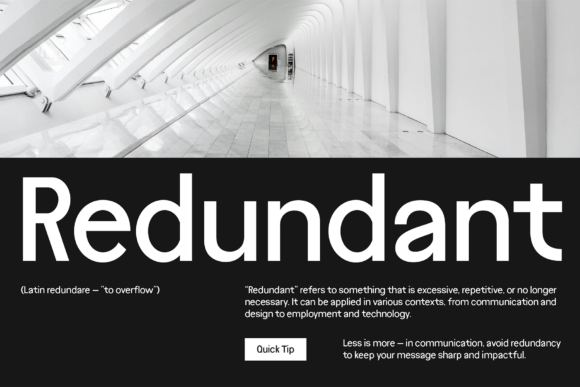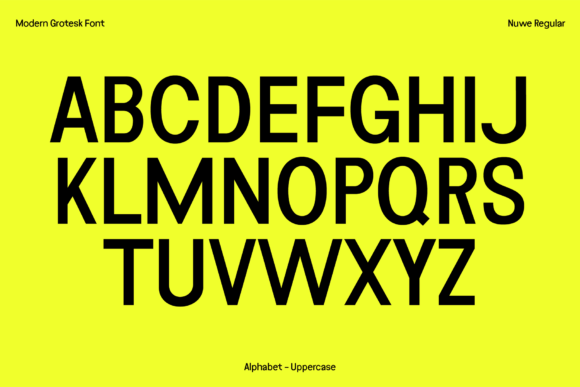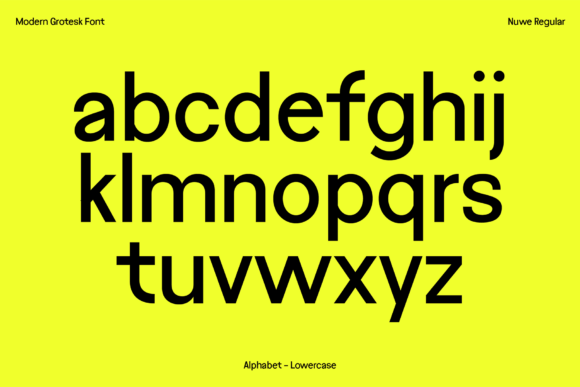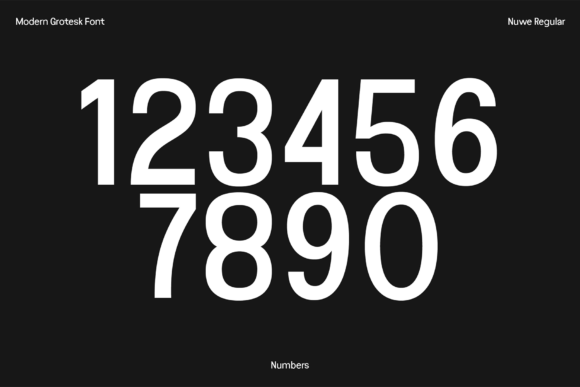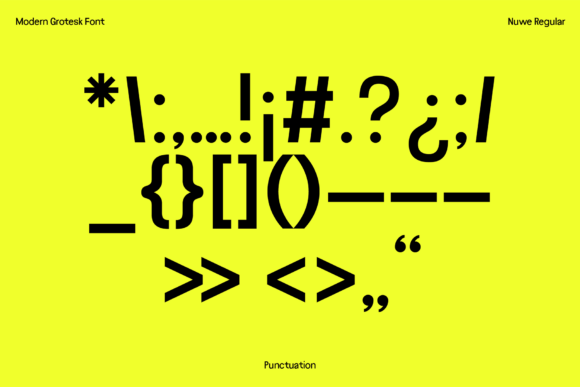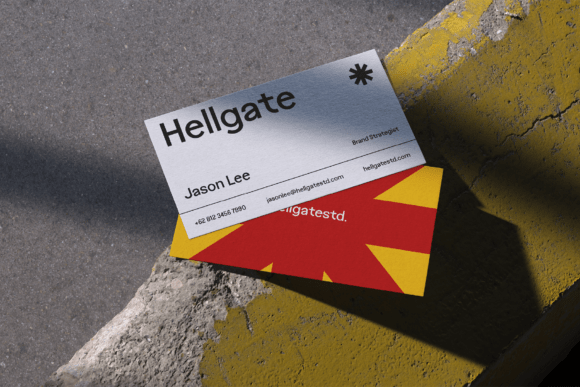
Introduction to Nuwe Sans Font
As you sit at your desk, staring at a blank page or screen, the creative wheels begin to turn. You envision a world of beauty, a symphony of words and images that will transport your audience to a new realm of experience. But, the key to unlocking this vision lies in the subtleties of design – the font that brings your words to life.
Among the countless options available, one font stands out for its unparalleled elegance and sophistication: the Nuwe Sans Font. This versatile design resource is the perfect companion for any creative project, allowing you to effortlessly craft high-quality typography that elevates your work to new heights.
Whether you’re a seasoned designer or just starting out, the Nuwe Sans Font is a valuable addition to your toolkit, offering the convenience of effortless text editing and colour customization, all while delivering rich, high-quality renders.
Key Features of Nuwe Sans Font
- High-quality design resource for creative projects, offering a modern and sleek aesthetic.
- Comes with a transparent background, allowing for seamless integration into various design compositions.
- Features a clean and minimalist design, with a font size range of 12-72 points and a resolution of 300 DPI.
- Perfect for use in digital design, including web design, graphic design, and print materials.
Honest Review: Nuwe Sans Font
As a designer, I’m always on the lookout for high-quality design resources that can elevate my creative projects. Recently, I stumbled upon the Nuwe Sans Font, and I must say, it’s been a game-changer.
Here are some things that work well with the Nuwe Sans Font:
- ✨ Clean and modern design: The font is perfect for creating a sleek and sophisticated look in any design project.
- ✨ High-quality glyphs: The font includes a wide range of glyphs, including Latin, Greek, and Cyrillic characters, making it a versatile option for global audiences.
- ✨ Transparent background: The font’s transparent background makes it easy to use in various design scenarios, from branding to digital products.
- ⚠️ Limited font weight options: While the font has a clean and modern design, it would be great to have more font weight options to add more depth and versatility.
- ⚠️ Not ideal for small text sizes: The font can appear slightly blurry when used in small text sizes, so it’s best to use it in larger sizes or for headings.
Overall, I’m impressed with the Nuwe Sans Font, and I would highly recommend it as a design resource for any creative project. With a bit of tweaking, it can be a valuable addition to any designer’s toolkit.
Nuwe Sans Font
The Nuwe Sans Font is a high-quality design resource that can elevate your creative project to the next level. With its sleek and modern design, it’s perfect for a wide range of applications.
Tips for Getting the Most Out of Nuwe Sans Font
To get the most out of the Nuwe Sans Font, be sure to:
- Use it with a transparent background for a clean and modern look.
- Pair it with other high-quality fonts for a professional design.
The Nuwe Sans Font is perfect for a wide range of applications, including:
- Branding and logo design.
- Business cards and letterhead.
- Web design and development.
- Print design and publishing.